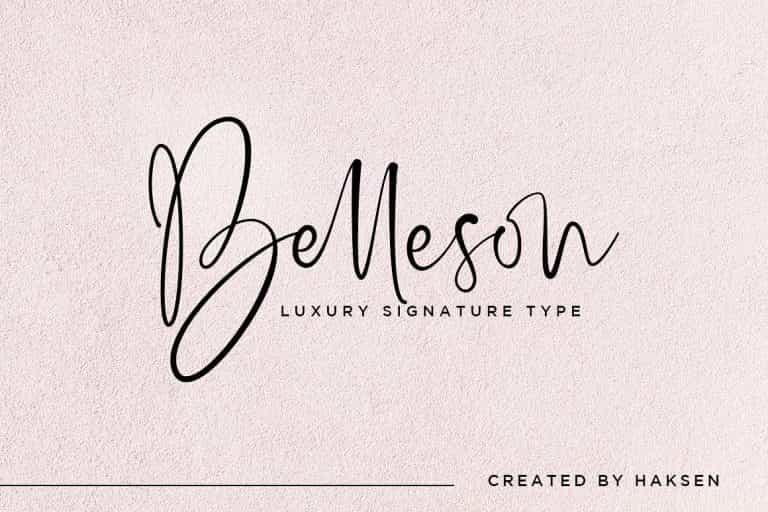
Introducing Belleson Font. Belleson is a luxurious script that allows you to demonstrate your good tastes and earn stunning results. With a unique style, this font type of type has incredible alternatives for the end of the tail and unique. Belleson is great, how far you can use it for your brand whether you get a business card and a lot of useful things. Such as logos, blogs, and websites.